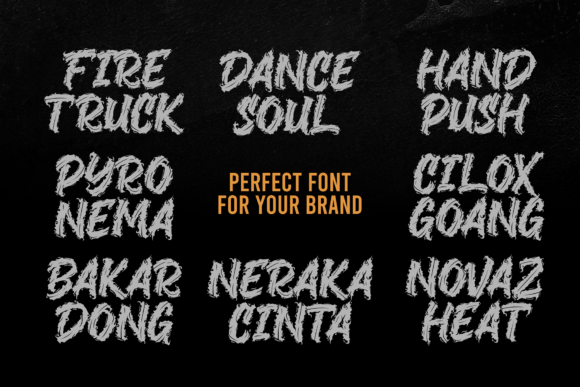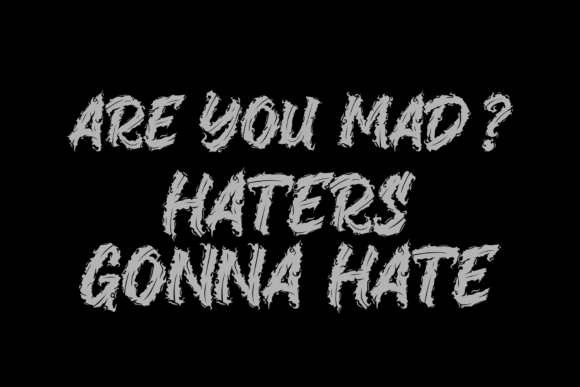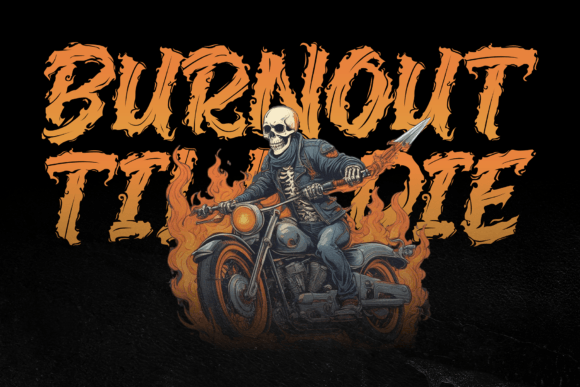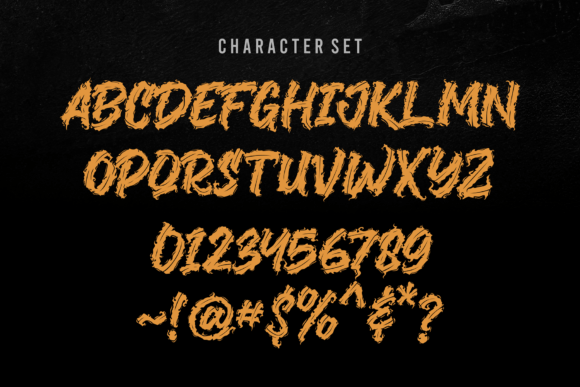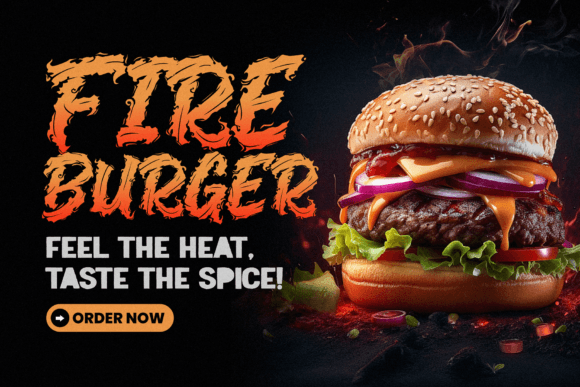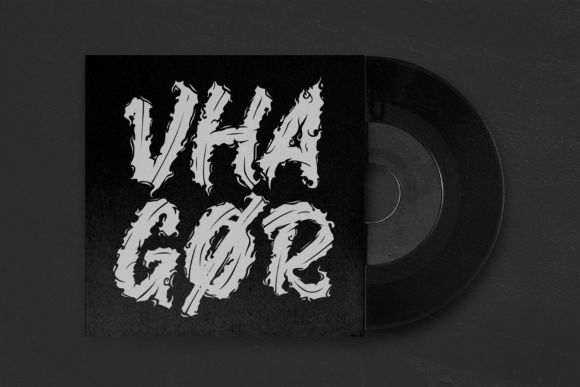
Ignite Your Designs with the Power of Black Fire Font
Have you ever stared at a blank canvas, struggling to bring your creative vision to life? You’re not alone. Many designers face this challenge, but what if you had the perfect tool to spark your imagination and set your designs ablaze? That’s where the Black Fire Font comes in – a game-changing decorative font that combines striking letterforms with flame-inspired embellishments to create a truly captivating visual experience.
Perfect for projects that demand a bold and fiery touch, the Black Fire Font is a valuable addition to any designer’s toolkit. Its unique design ensures that your text stands out, making it ideal for headlines, posters, and branding that require a commanding and memorable statement. Whether you’re designing for music events, sports teams, or edgy brands, the Black Fire Font adapts effortlessly, adding a touch of decorative elegance to your work.
Black Fire Font Key Features
- Font Family: Black Fire is a unique, hand-drawn font designed to evoke a sense of drama and sophistication. It features a range of styles, from elegant to bold.
- Size: The font family includes a range of weights, from 100 to 900, allowing for precise control over the level of boldness and subtlety in your designs.
- Resolution: Designed for high-resolution displays, Black Fire looks stunning at resolutions up to 300 DPI, making it perfect for print and digital applications.
- Unique Characteristics: The font features intricate, hand-drawn details and ornate flourishes, giving it a one-of-a-kind look that sets it apart from more traditional fonts.
- Language Support: Black Fire supports a wide range of languages, including Latin, Cyrillic, and Greek, making it a versatile choice for designers working on global projects.
Designer Review: Black Fire Font
Overall, I think the Black Fire Font is a solid choice for designers who want to add a touch of sophistication and elegance to their projects. ✨ Here are some of the things that I think work well:
- Unique style: Black Fire Font has a distinctive, hand-drawn feel that sets it apart from more generic sans-serif fonts.
- Highly customizable: With a wide range of font weights and styles available, you can tailor Black Fire to suit your design needs.
- Effective for titles and headings: The font’s bold, dramatic feel makes it perfect for grabbing attention and setting the tone for a project.
- Not ideal for large blocks of text: While Black Fire is great for titles and headings, it can be difficult to read in large quantities. ⚠️
- May not be accessible for all users: The font’s unique style and limited font sizes can make it challenging for some users to read.
In terms of overall impression, I think Black Fire Font is a great choice for designers who want to add some flair to their projects. While it may not be suitable for every design task, it’s definitely worth considering for titles, headings, and other high-impact elements.
Black Fire Font is ideal for creating dramatic and bold headings, titles, and logos. Use it to add a touch of elegance and sophistication to your designs. Tips for getting the most out of Black Fire Font include:
– Using it sparingly to create maximum impact.
Alternatives to Black Fire Font
Great Vibes is a modern, elegant script font that is perfect for creating a sophisticated and luxurious look. It is ideal for use in headings, titles, and quotes, especially in creative and artistic designs. Great Vibes is more cursive and flowing compared to Black Fire Font, which has a more geometric and industrial feel.
Pacifico is a beautiful, handwritten font that evokes a sense of relaxation and serenity. It is suitable for use in headings, titles, and body text, especially in designs that require a touch of elegance and sophistication. Pacifico is more casual and laid-back compared to Black Fire Font, which is more dramatic and attention-grabbing.